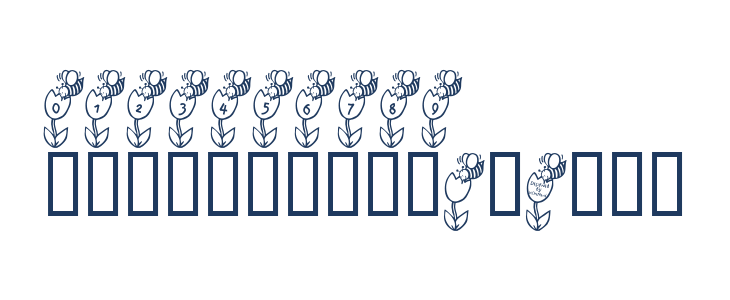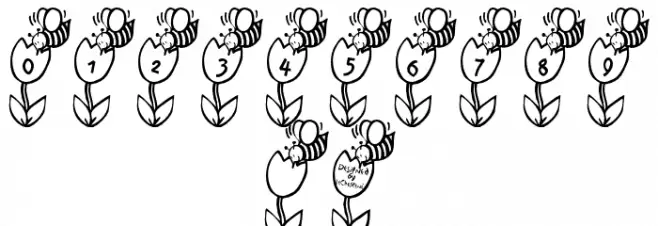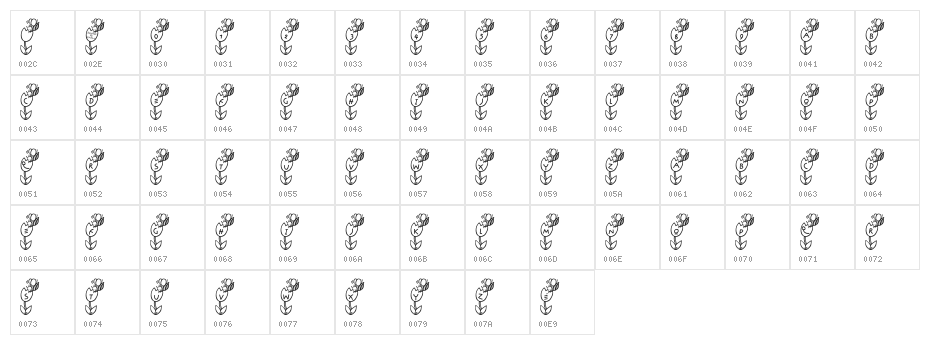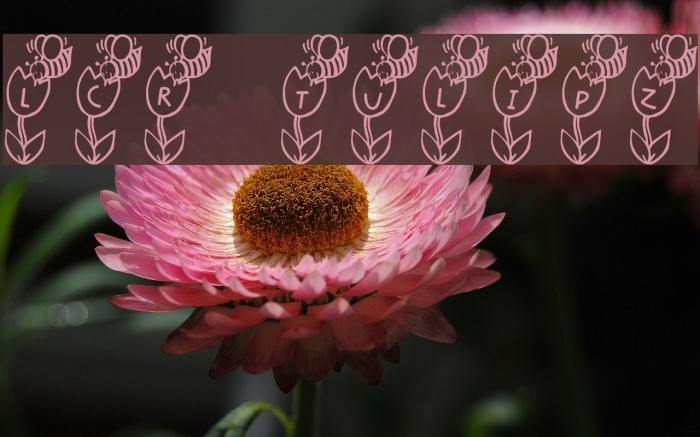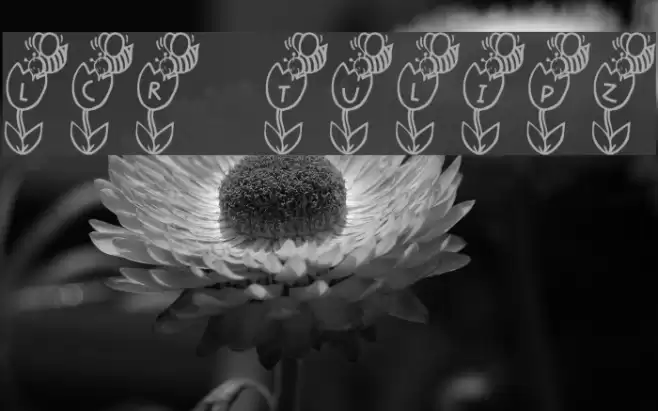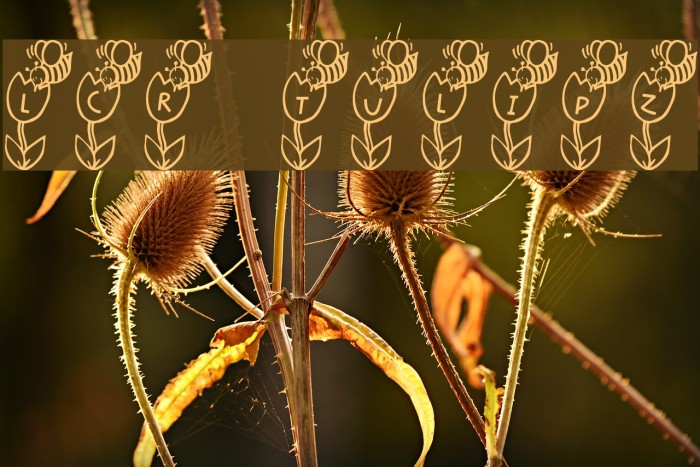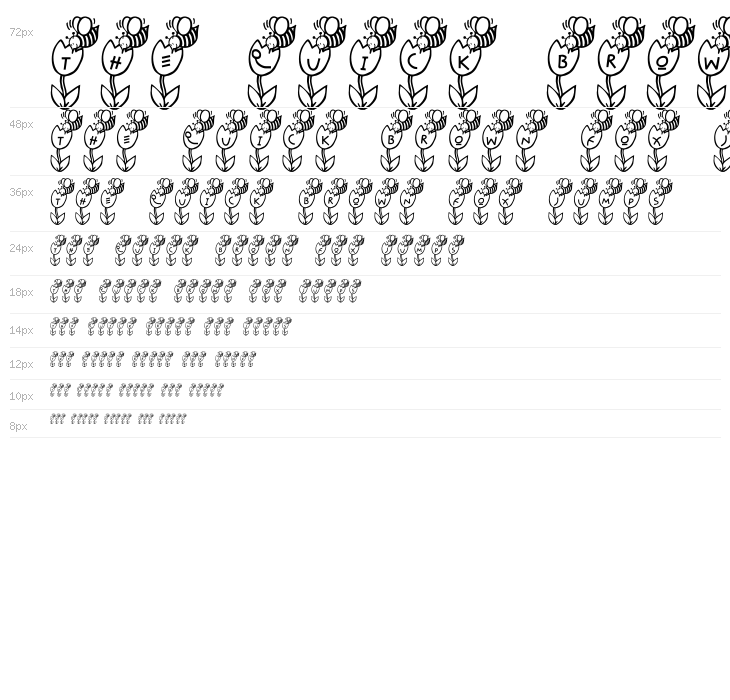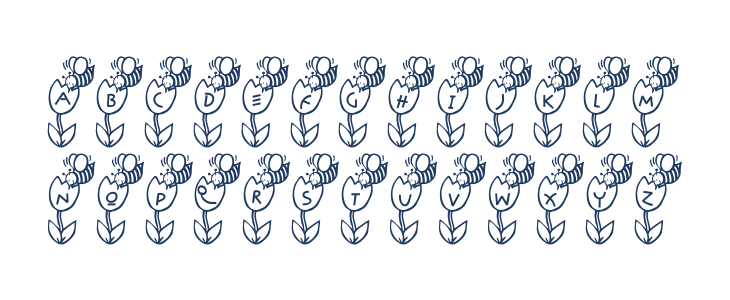
LCR Tulipz Font
LCR Tulipz Description
This whimsical and decorative font features each character encapsulated within a tulip design, complete with a bee perched on top. The letters and numbers are bold and playful, with a hand-drawn aesthetic that adds a touch of charm and creativity. The tulip and bee elements create a unique and engaging visual experience, making it ideal for projects that require a fun and lively touch. The font's style is consistent across uppercase, lowercase, and numerical characters, maintaining a cohesive look throughout.
| Proposed Projects | Ideal for children's books, greeting cards, playful branding, and decorative posters. |